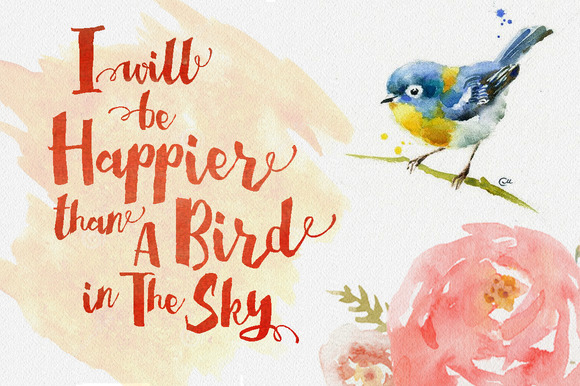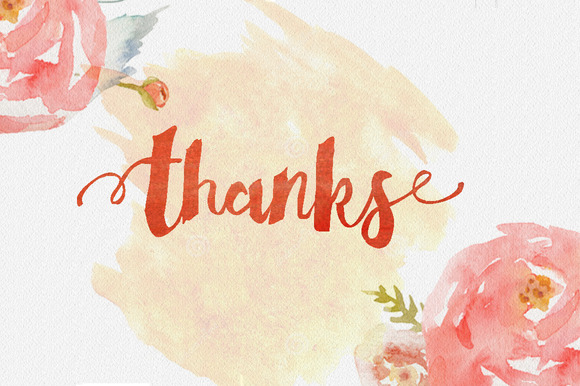
Introduction to Lussira Brushscript Font
Lussira Brush Script is a completely handwritten typeface made with watercolors and a calligraphy brush.
It is a beautiful hand painted script that comes with a set of extras It can be used for various purposes such as headings, logos, invitations, t-shirt designs, greeting cards, posters, labels, book covers, brochures and much more.